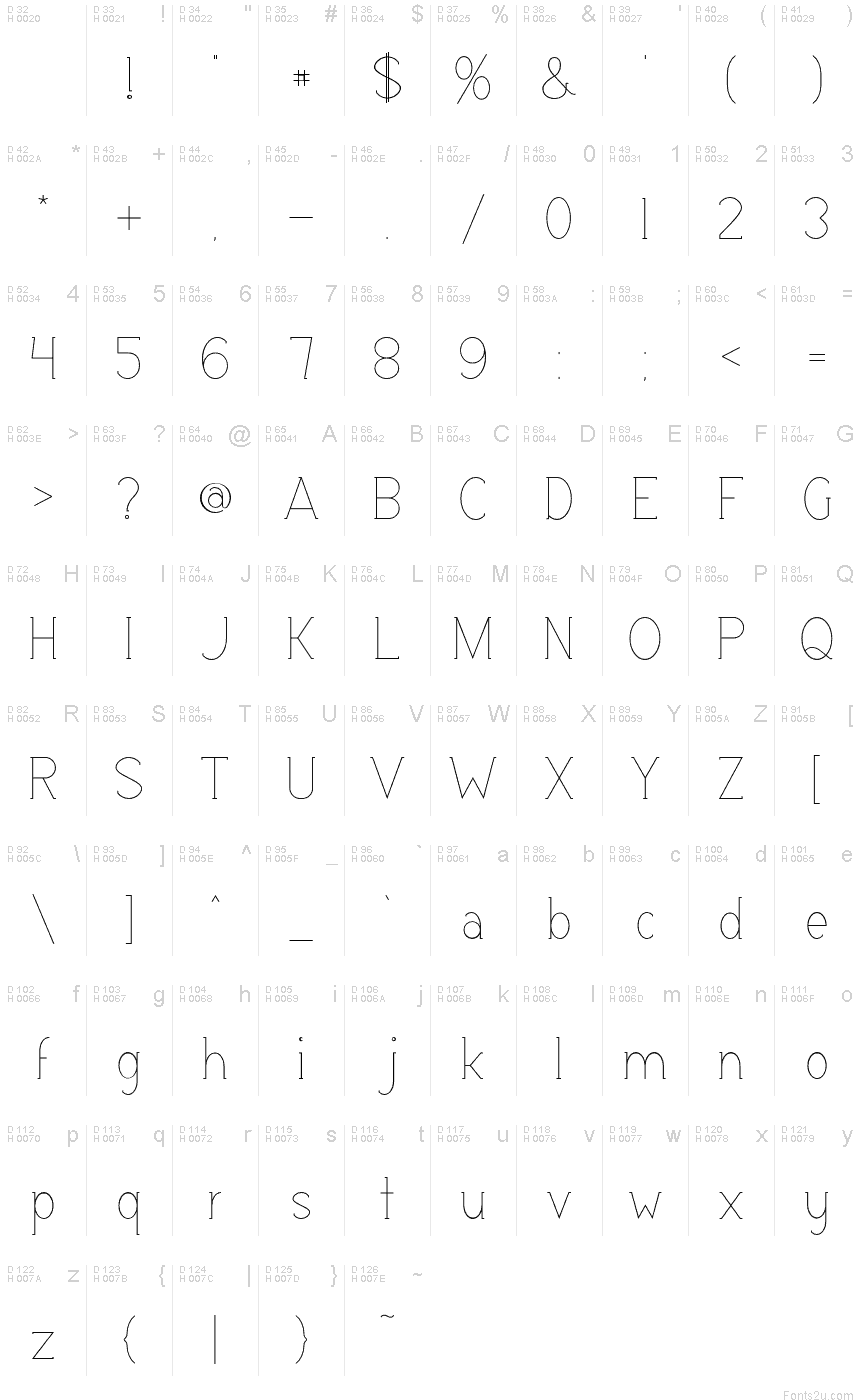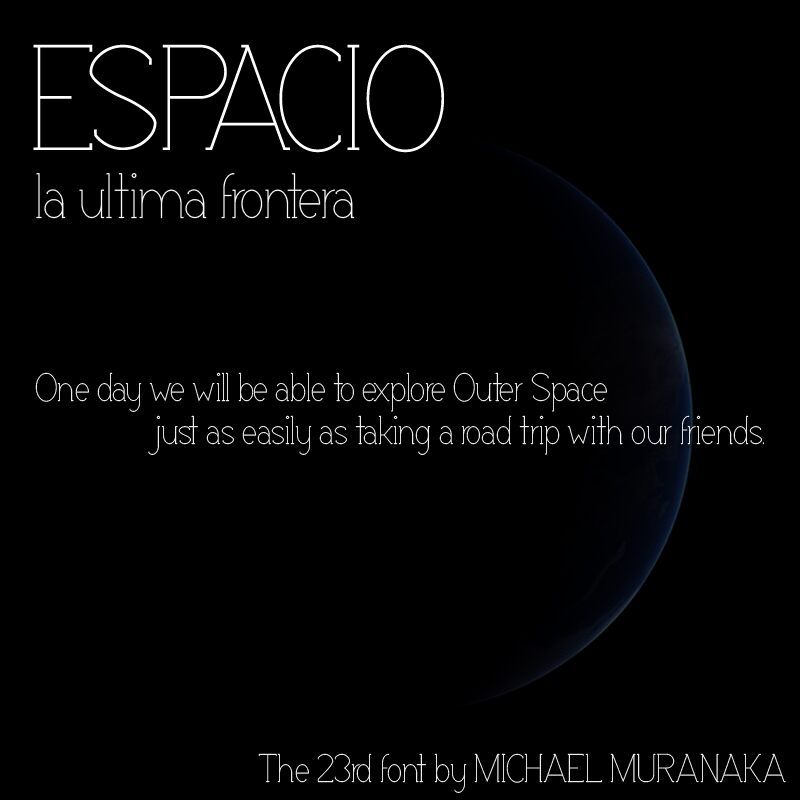
Espacio
This is a nice, tranquil, happy serif font for your collection. It has thin lines and a fun personality. It is pretty complete so it could be used for website embedding. It could also be used for logos, ad copy, signage, or any other cute little thing your imagination can create!